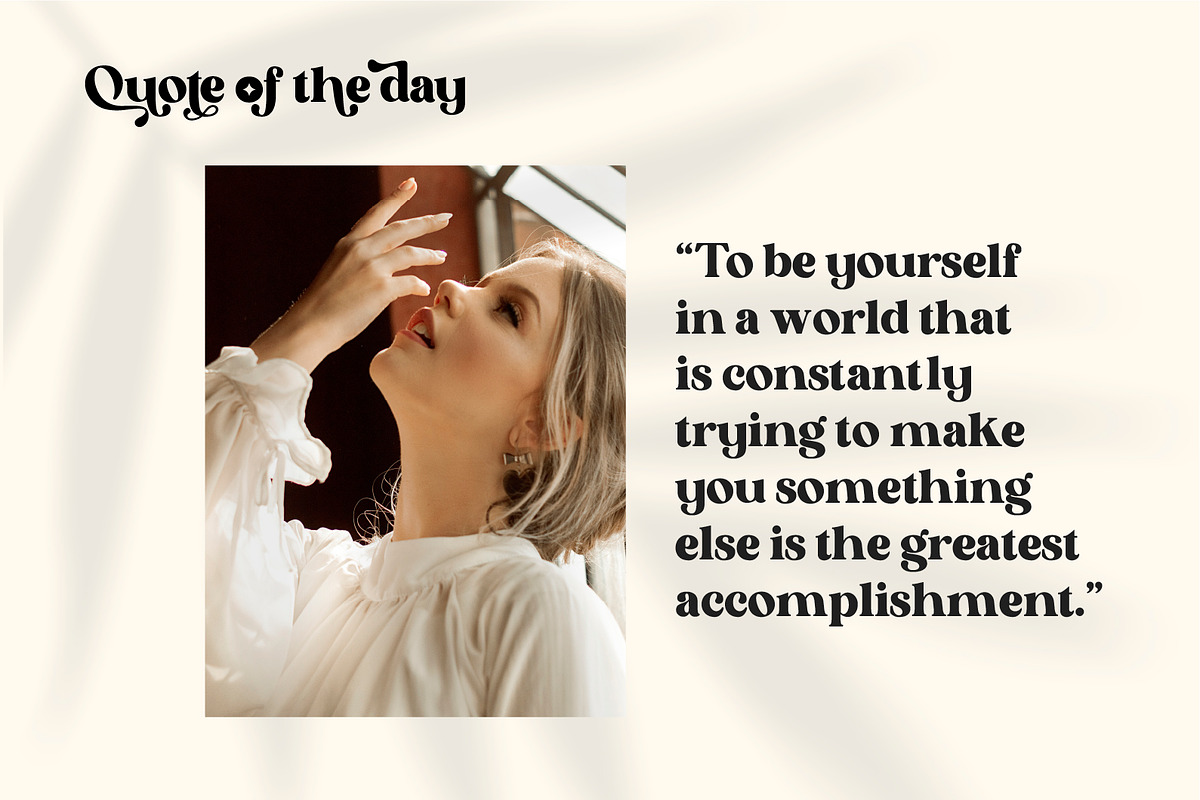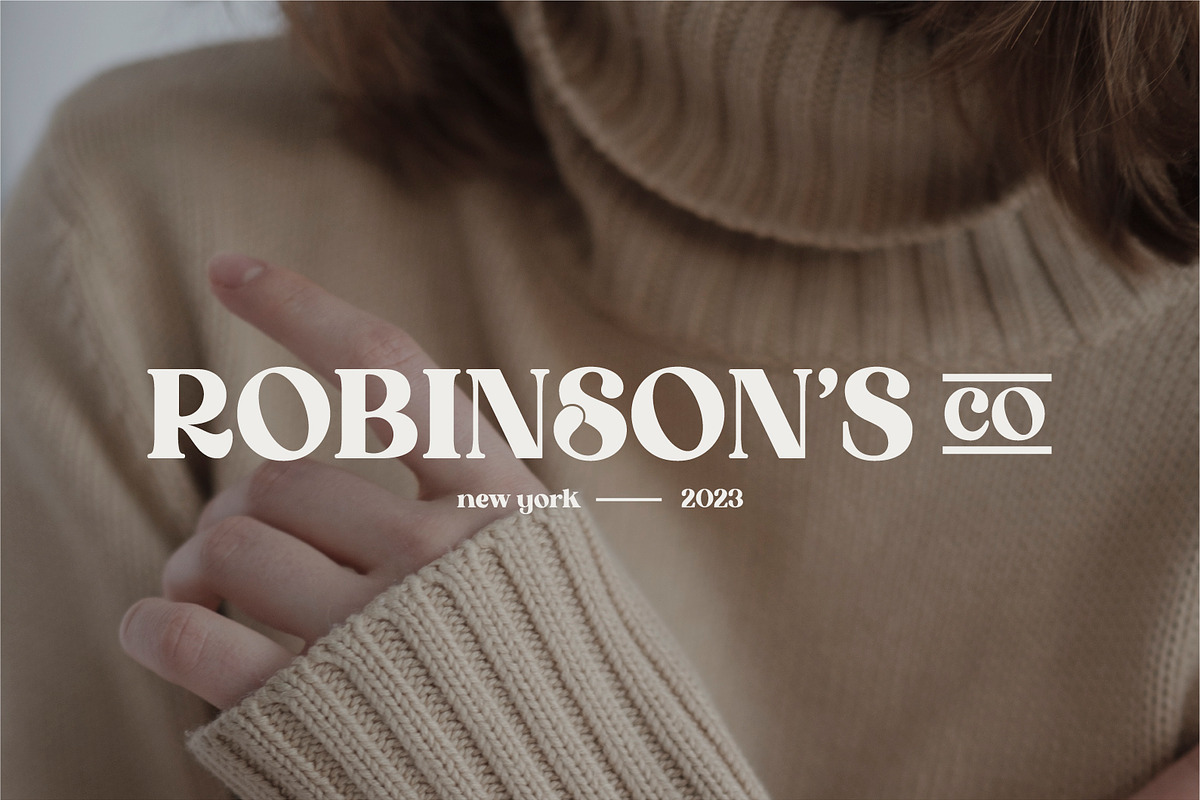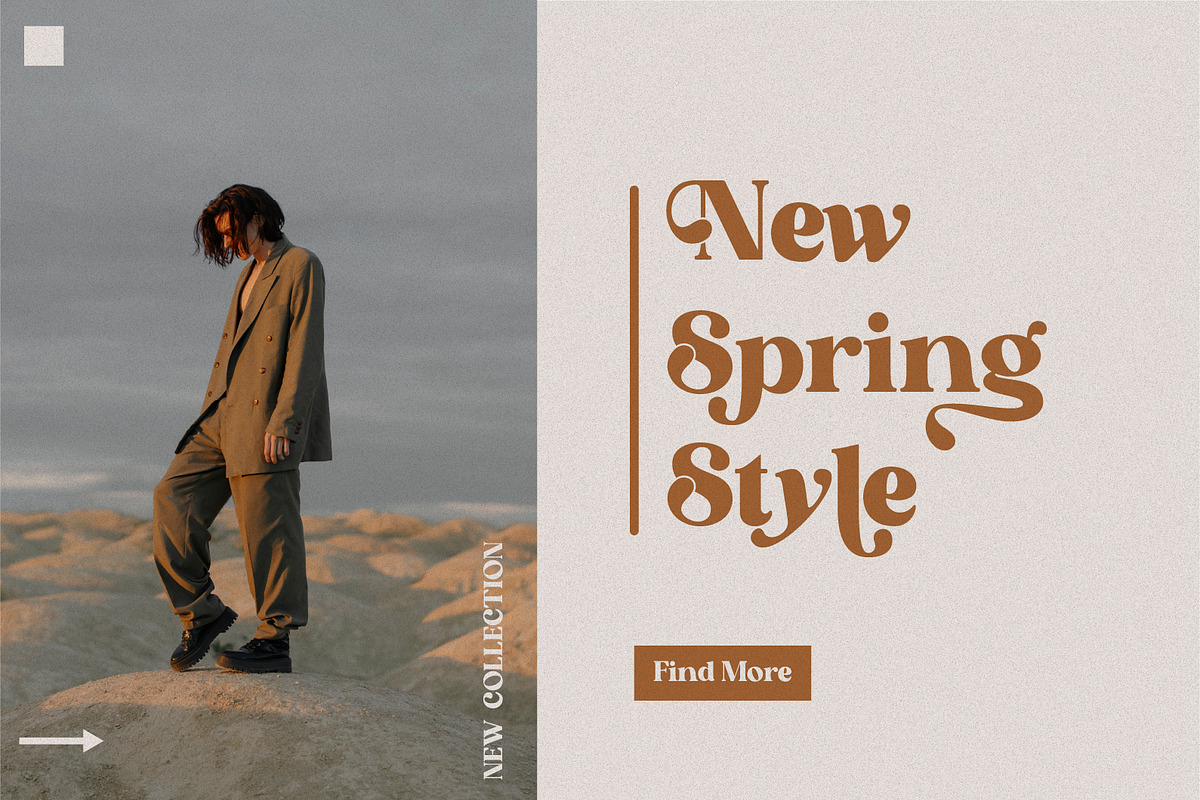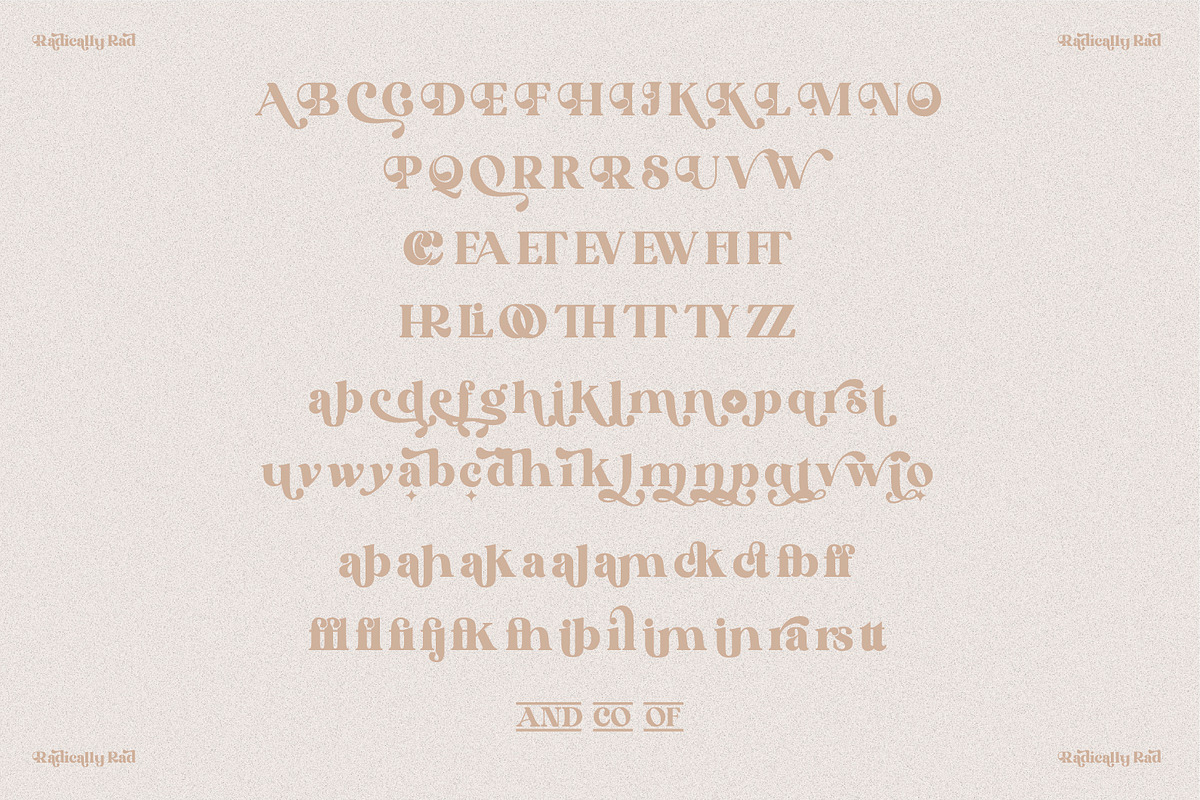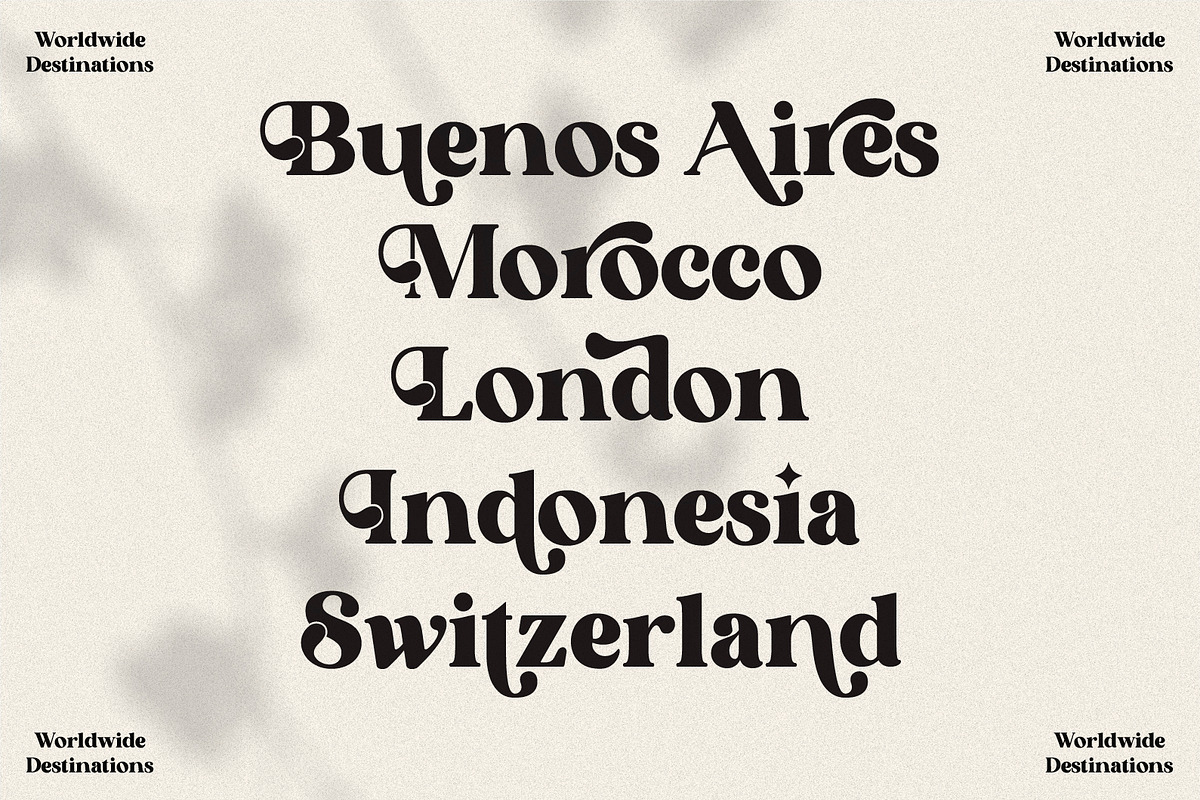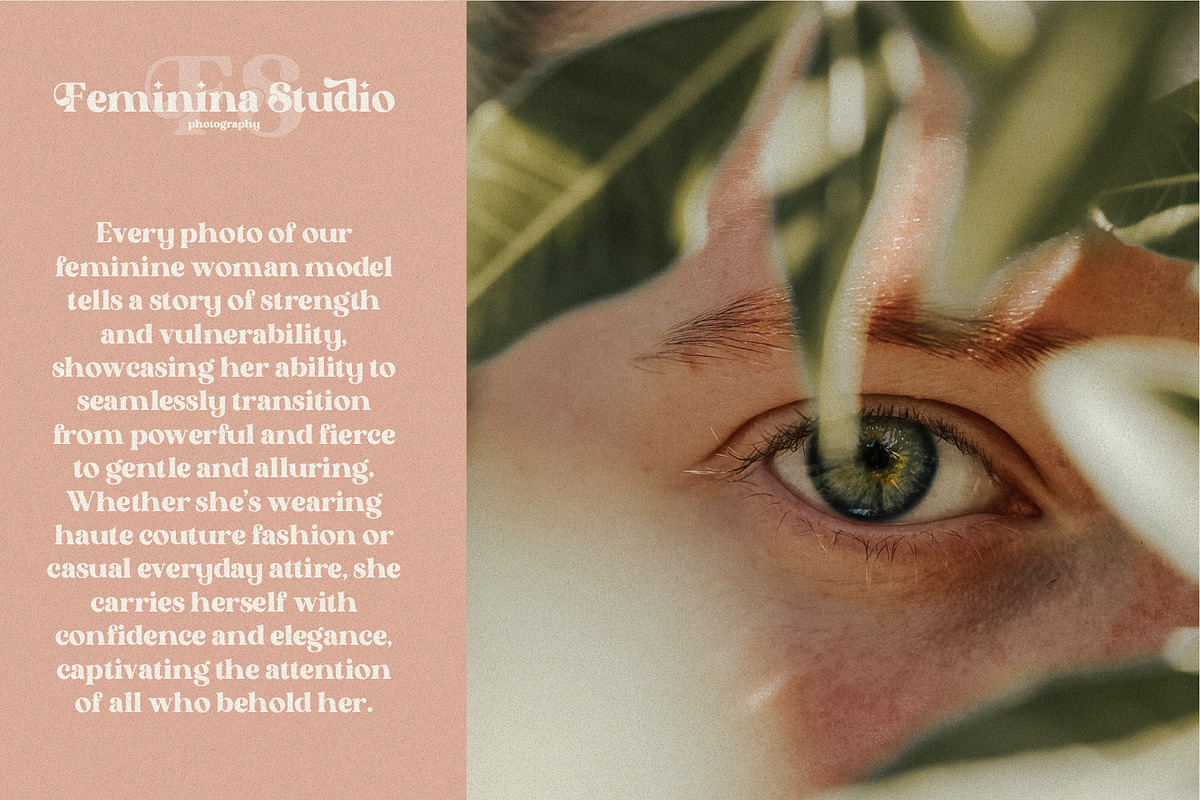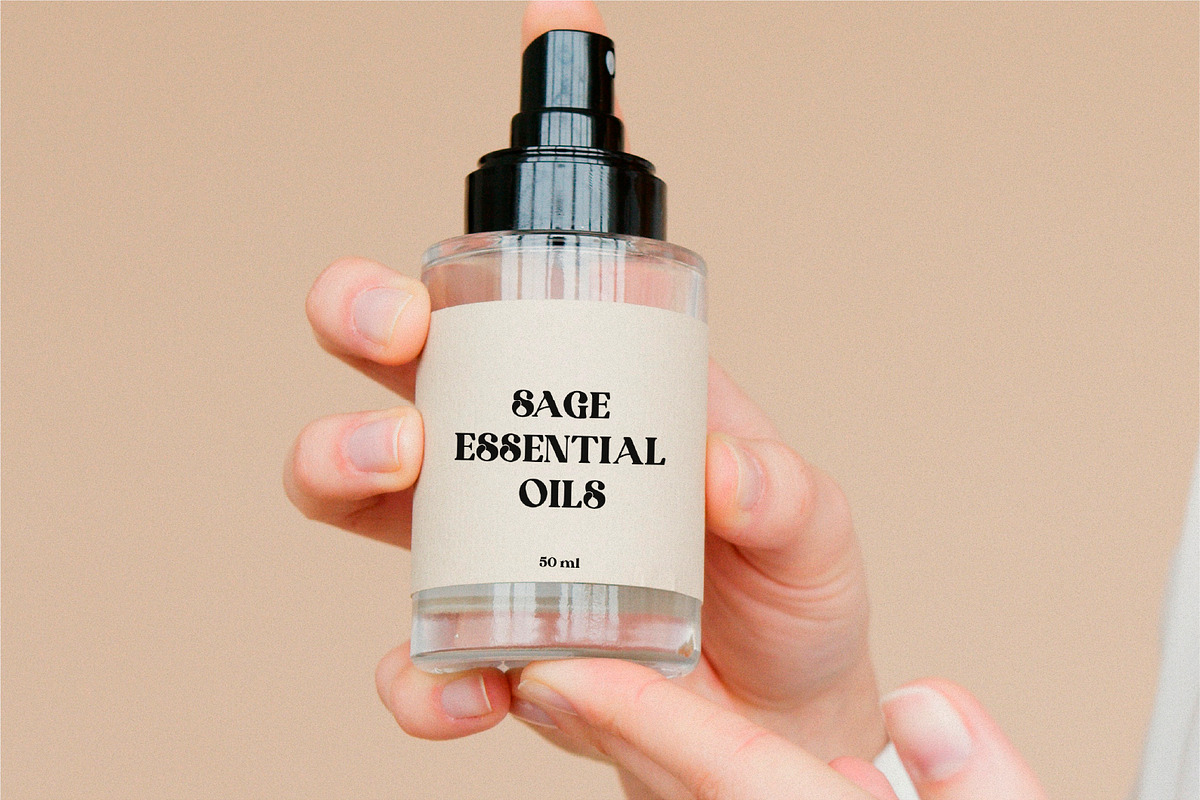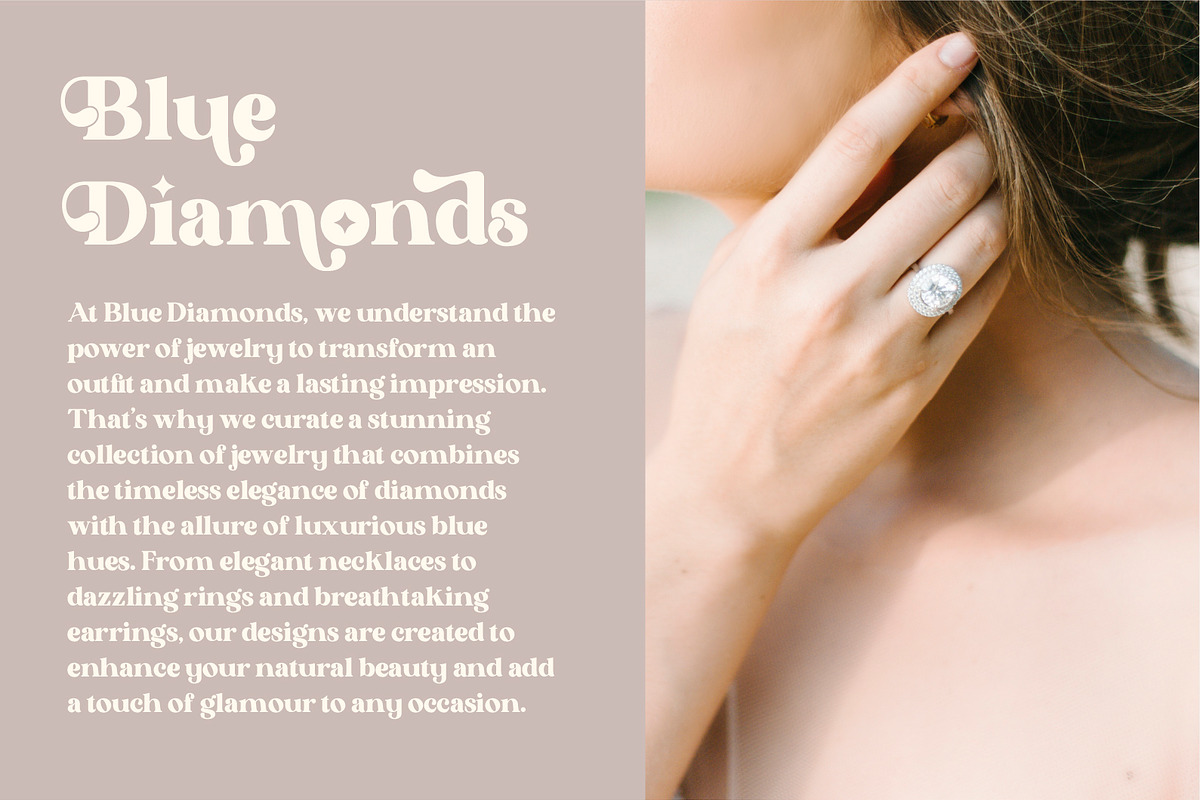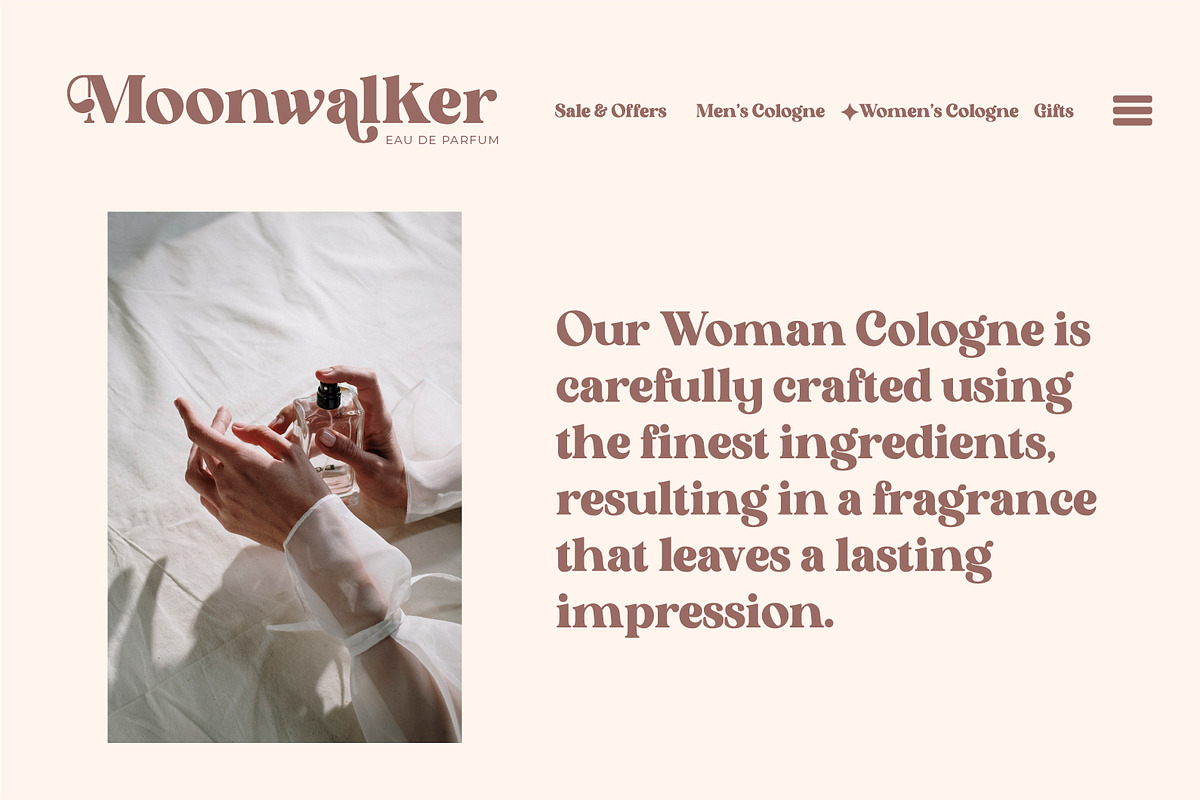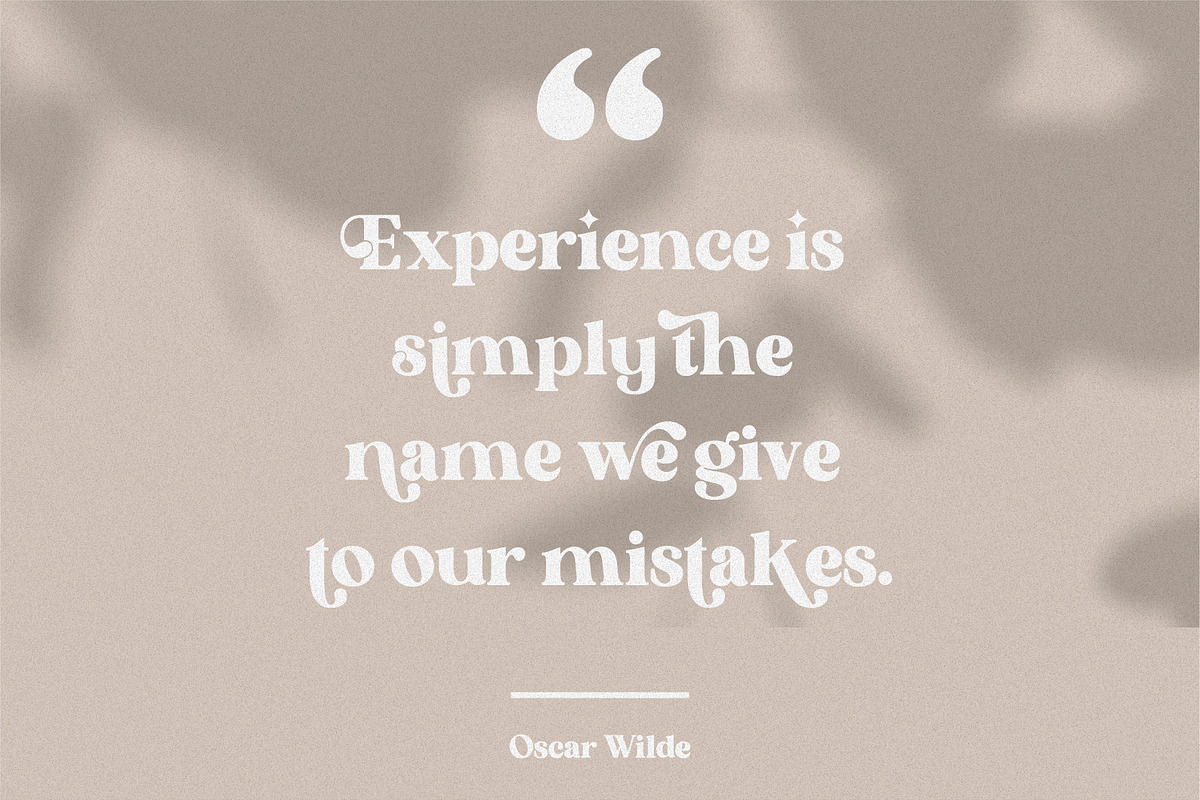
Radically Rad — A Display Serif
Introducing Radically Rad a Radically Rad Display Serif Font, a true masterpiece of typography that combines boldness, elegance, and timeless beauty. This font is meticulously crafted to captivate and enchant with its abundance of stylistic alternates and elegant ligatures.
Designed for those seeking a font that makes a bold statement, Radically Rad Font features strong, thick letterforms that command attention. Each character exudes confidence and grandeur, drawing the eye and demanding admiration.
With an extensive collection of stylistic alternates, this font offers a myriad of design possibilities. Each alternate character presents a unique variation, allowing you to create personalized and distinctive typography that truly stands out. The elegant ligatures harmoniously connect characters, enhancing the overall aesthetic and flow of your text.
Whether you're designing for a high-end fashion brand, an upscale restaurant, or a sophisticated event, our Display Serif Font will add a touch of class and refinement to your compositions. Its beauty is truly ageless, ensuring that your designs remain exquisite and captivating for years to come.
Embrace the limitless creative possibilities and watch as your designs come to life with elegance and flair.